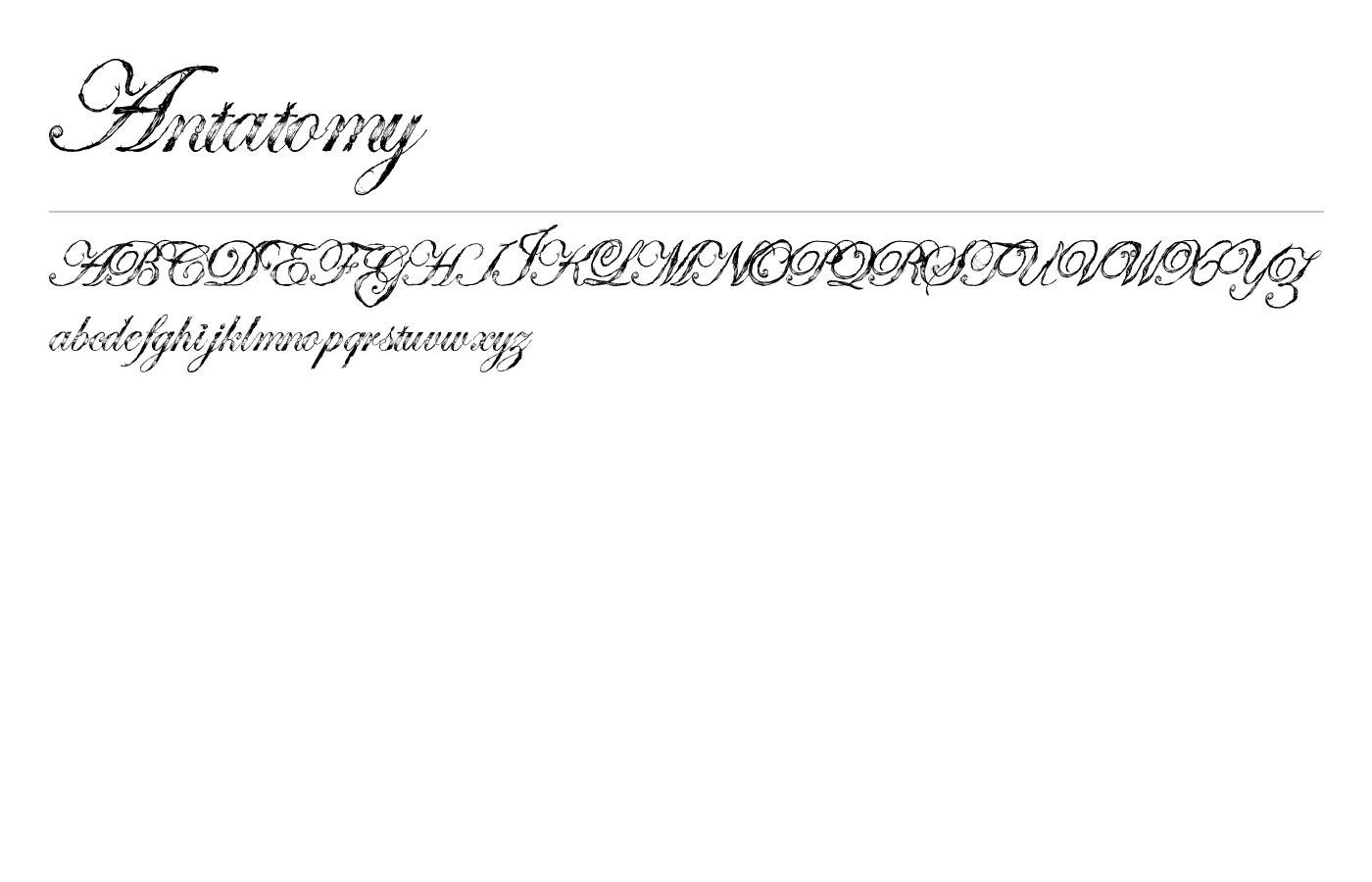
Antatomy is an elegant script font with a delicate, hand-drawn look that features intricate, flowing strokes and a lightly textured finish. It combines a refined, vintage feel with a slightly rough, organic style, making it perfect for creative branding, invitations, and decorative projects that seek a touch of sophistication and artistic charm. This font works best in headlines or display uses where its ornamental details can truly shine.
Antatomy Font
About Antatomy Font